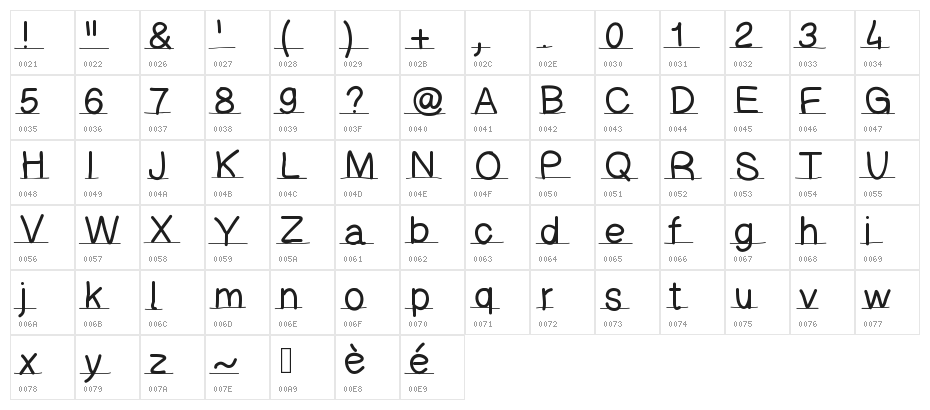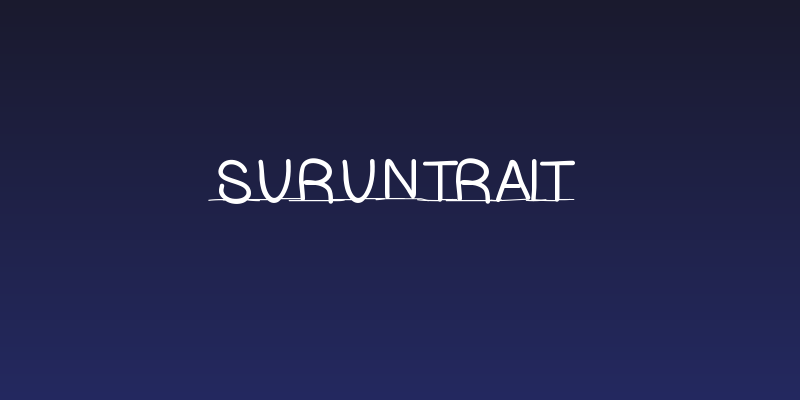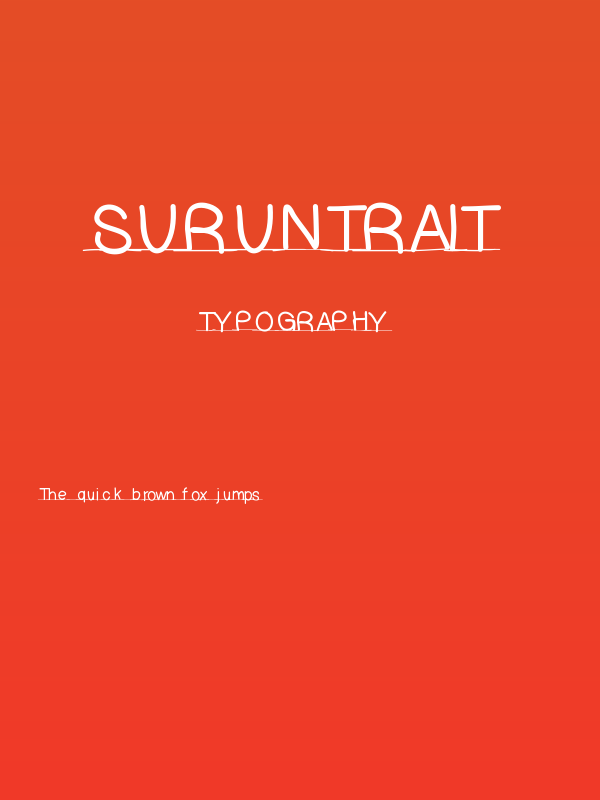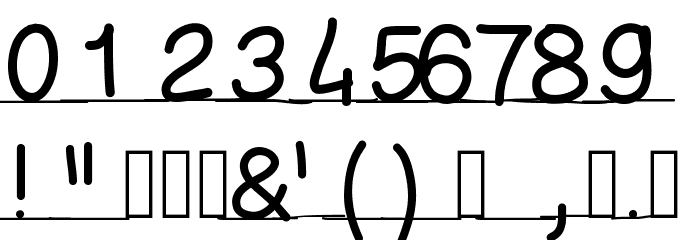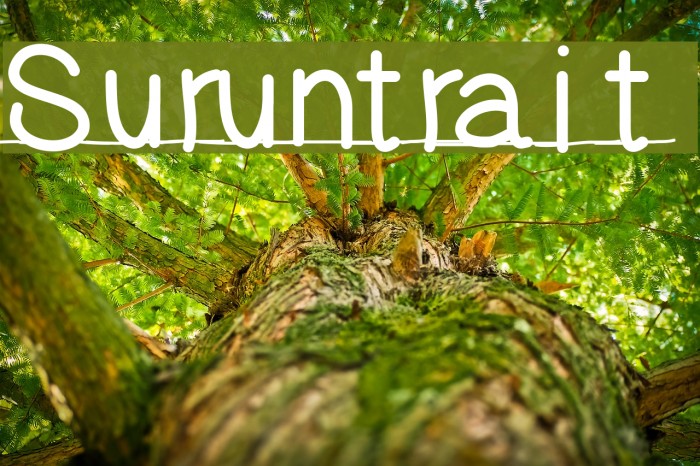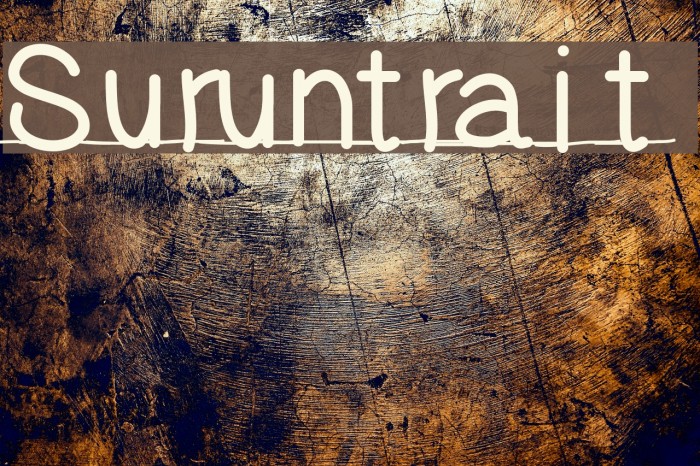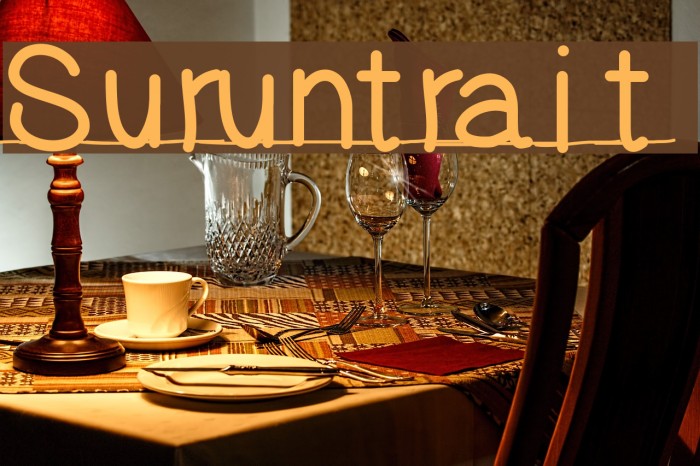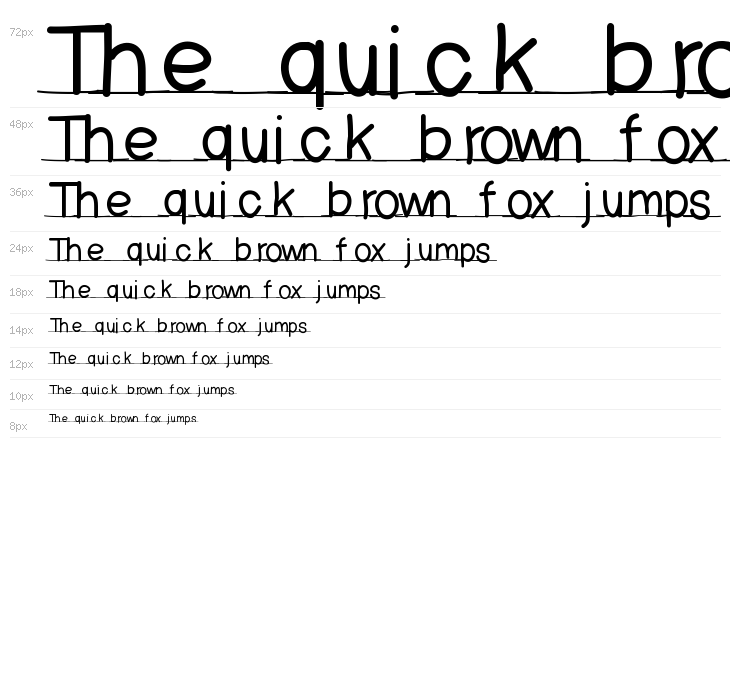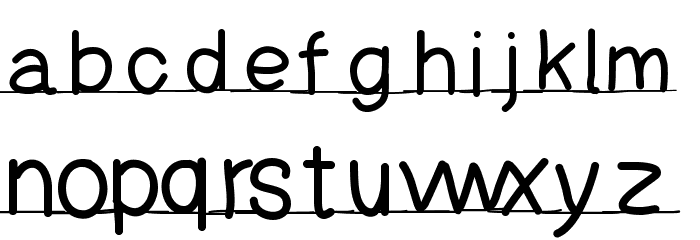
Suruntrait Font
Suruntrait Description
This font features a playful and casual handwritten style, characterized by its uneven strokes and slightly irregular letterforms. The uppercase letters are bold and prominent, while the lowercase letters maintain a consistent flow with a touch of whimsy. The numbers are rounded and maintain the same playful aesthetic, making them easily legible. Special characters are included, adding versatility to the font. The overall appearance is friendly and approachable, suitable for projects that require a personal touch.
| Proposed Projects | Ideal for children's books, greeting cards, casual invitations, and playful branding. |